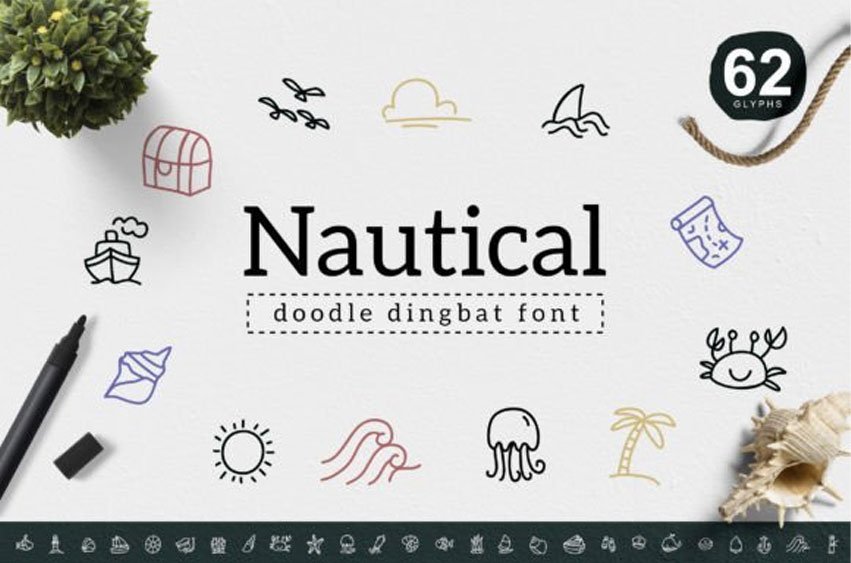
Nautical Dingbats Font is a cute and useful dingbats font perfect for a wide variety of projects.
Use it for stickers, posters, t-shirts, cards, apparel graphics, etc., and you will love the results!